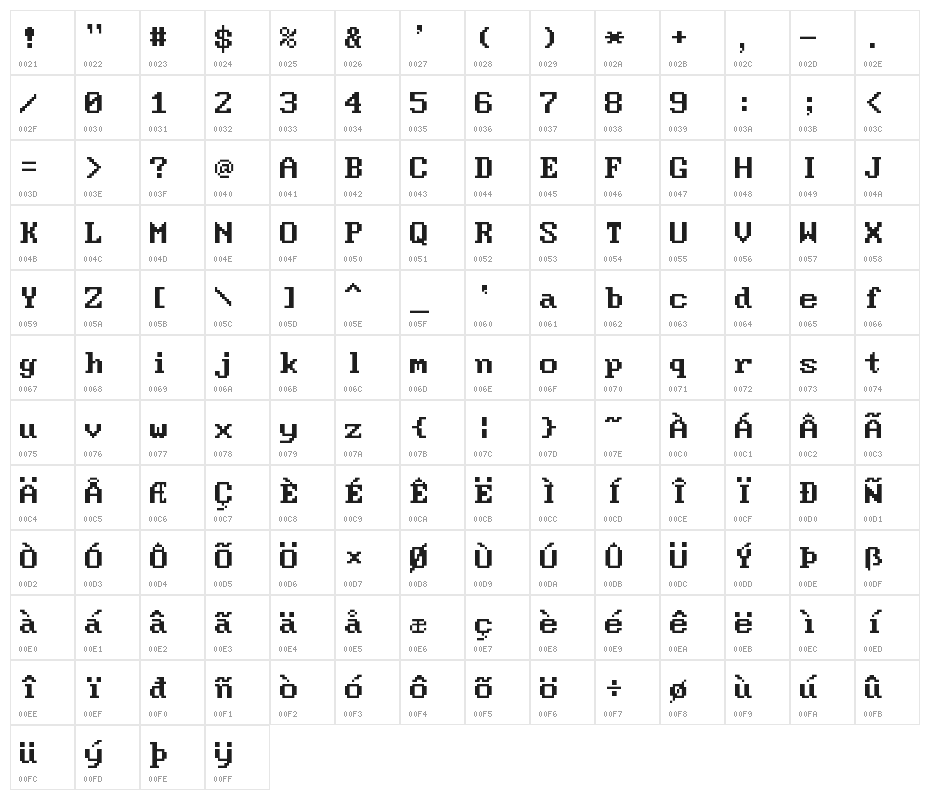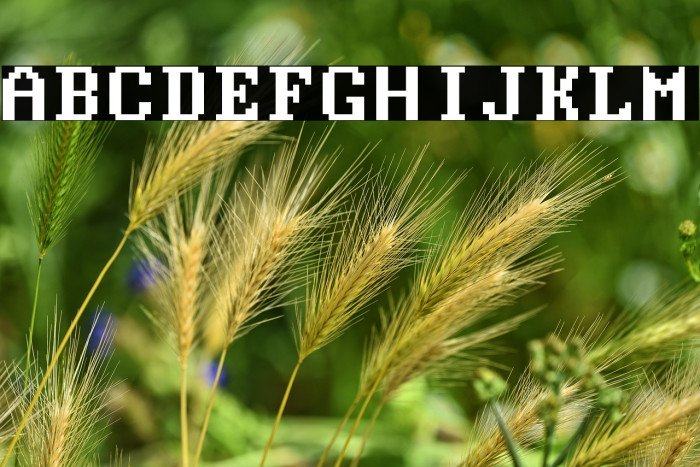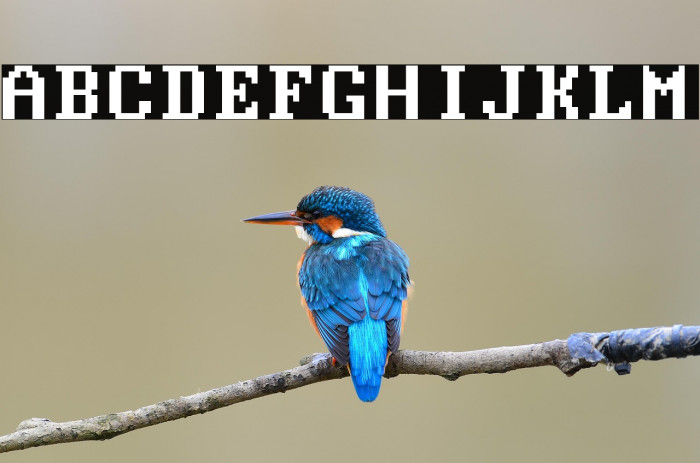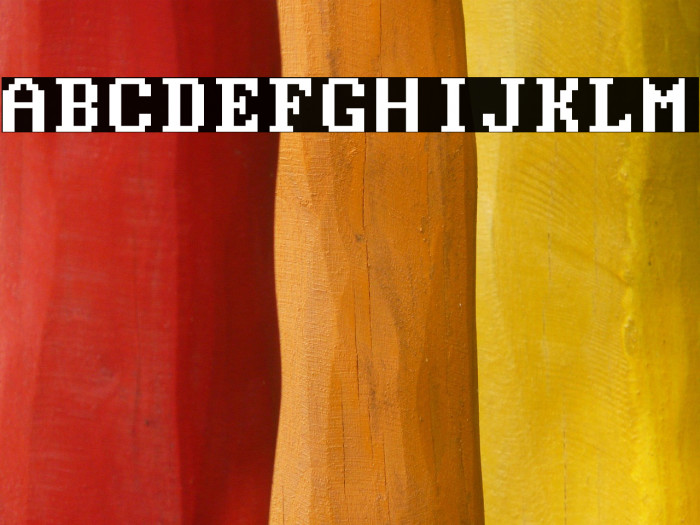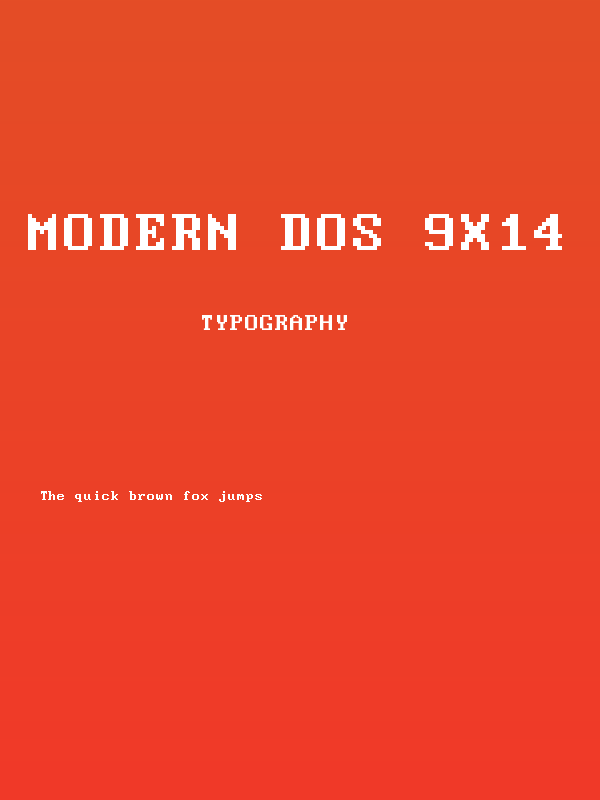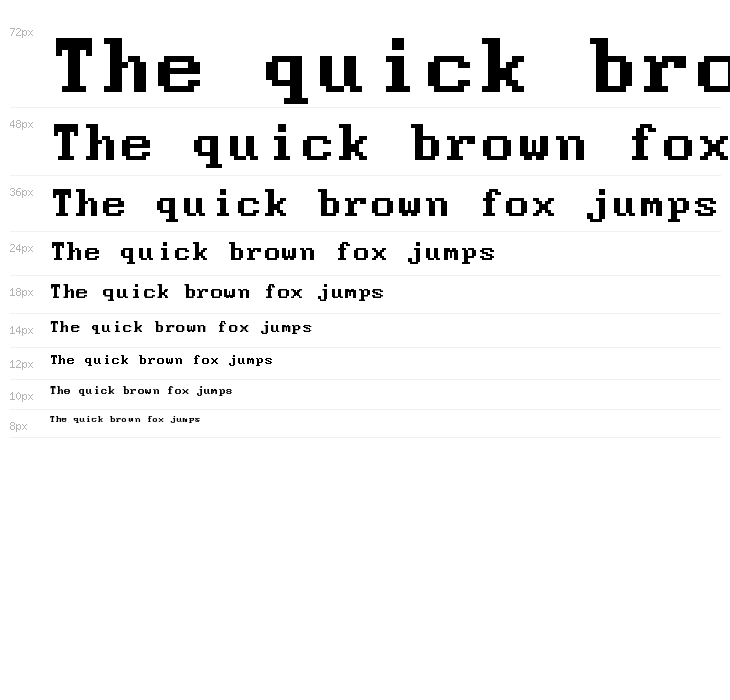
Modern DOS 9x14 Font
Modern DOS 9x14 Description
This font features a pixelated, monospaced design reminiscent of classic computer and video game aesthetics. Each character is constructed with a blocky, grid-like appearance, evoking a sense of nostalgia for early digital displays. The uniformity in character width ensures a consistent and orderly presentation, making it ideal for coding environments or retro-themed projects. The uppercase and lowercase letters maintain a clear distinction, while the numerals and special characters are easily recognizable, contributing to its functional and straightforward style.
| Use Case | Logos, Coding, Digital displays |
| Proposed Projects | Ideal for retro video games, coding environments, digital art projects, and nostalgic branding. |